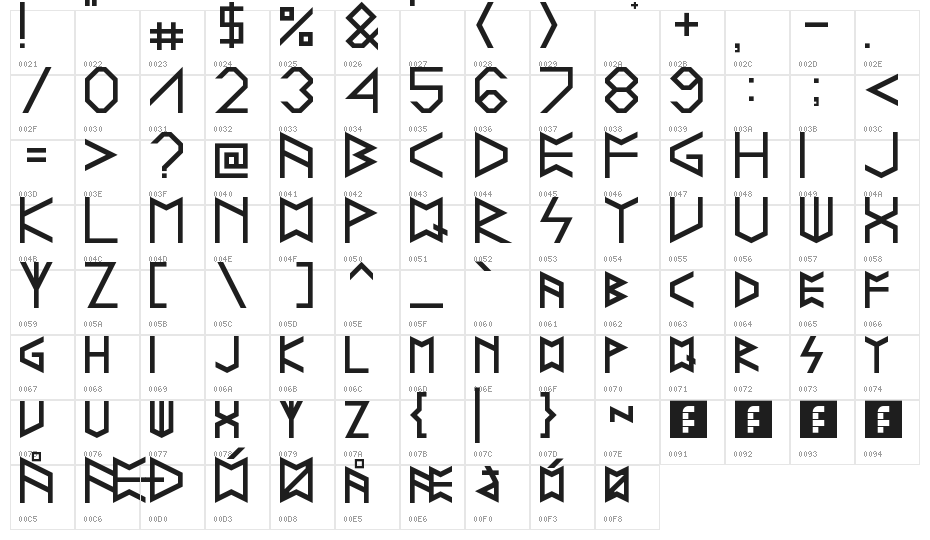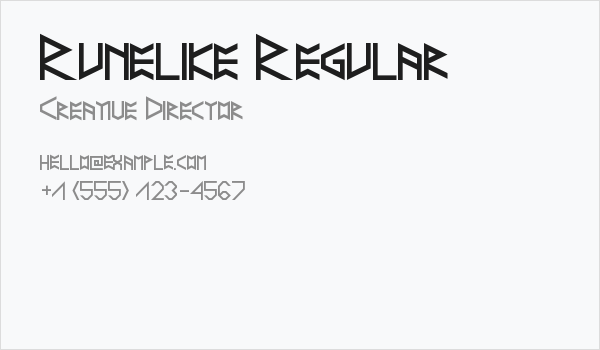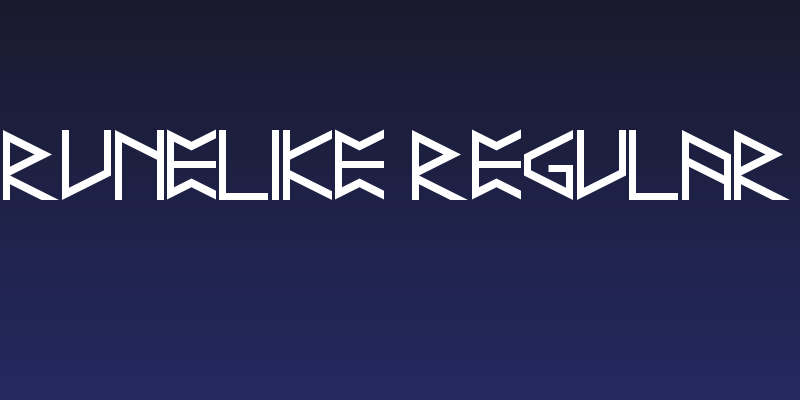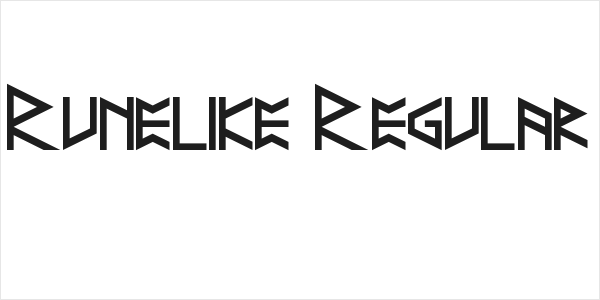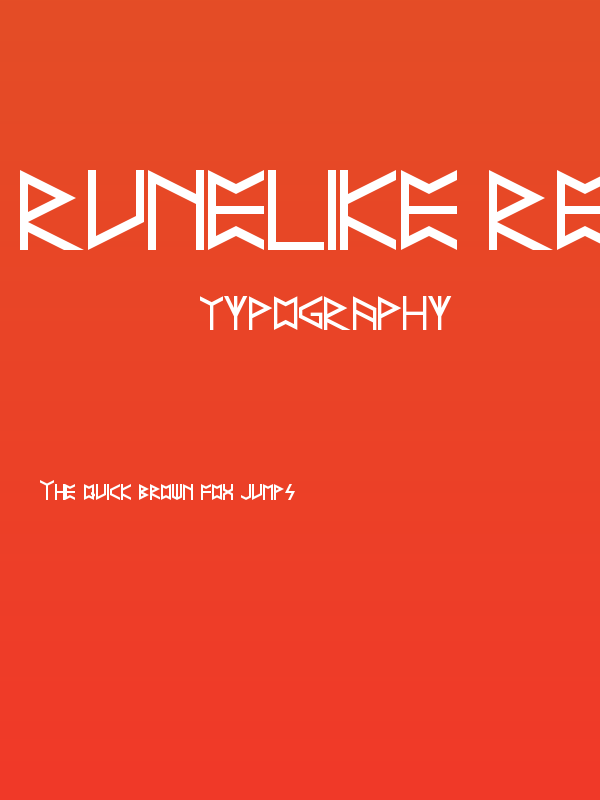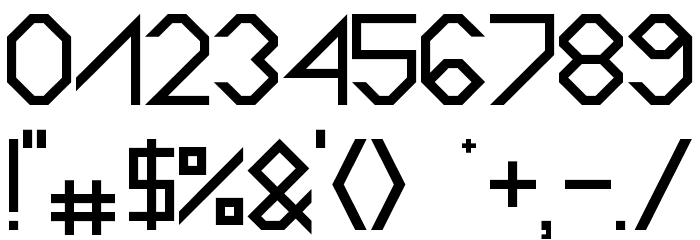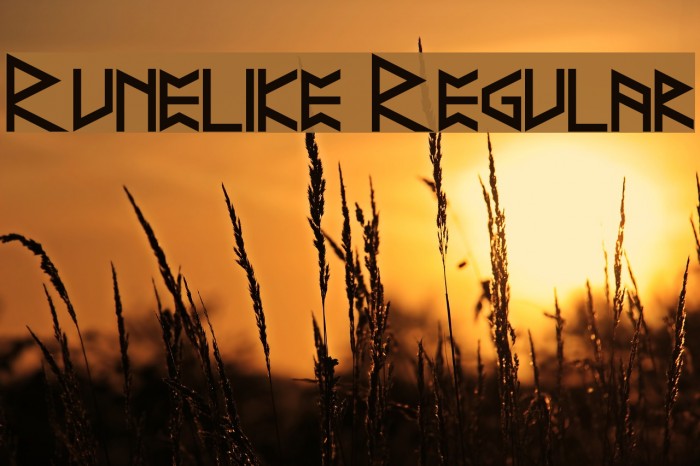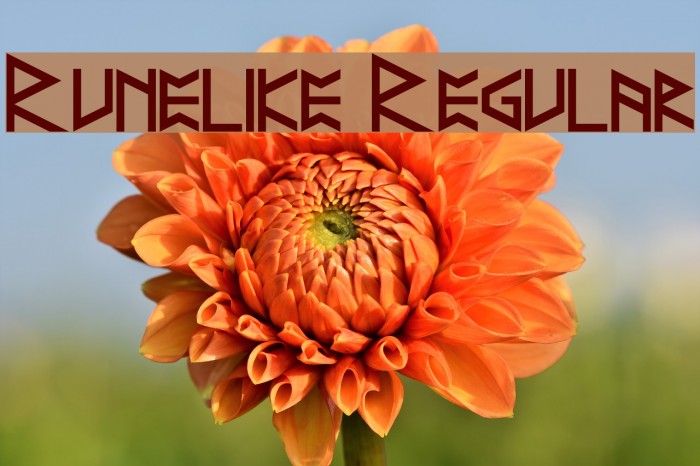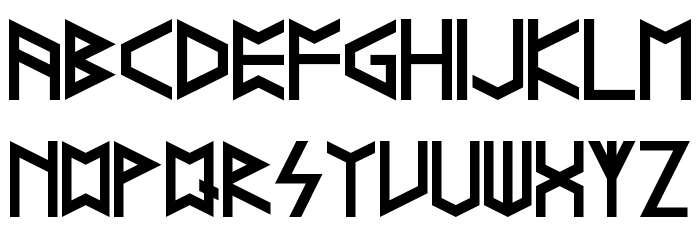
Runelike Regular Font
Runelike Regular Description
This font features a bold, angular design reminiscent of ancient runic alphabets. The characters are constructed with sharp, geometric lines, giving them a distinct and edgy appearance. The uppercase and lowercase letters maintain a consistent style, with a uniform thickness throughout each character. Numbers and special characters follow the same angular theme, ensuring a cohesive look across all elements. The font's unique style makes it stand out, ideal for projects that require a touch of historical or mystical flair.
| Proposed Projects | Perfect for fantasy-themed designs, video game titles, movie posters, or any project requiring a mystical or historical aesthetic. |